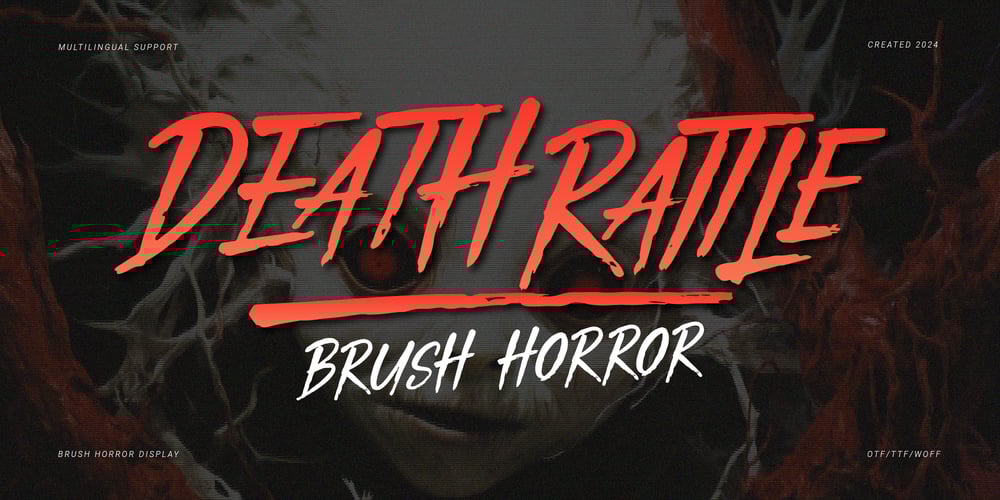
Death Rattle
Death Rattle font
Death Rattle Font Family was designed by Dede Nugraha and published by Denustudio. Death Rattle contains 2 styles and family package options. Death Rattle | Brush Horror Display, from Denustudios, suitable for any projects such as: logos, branding projects, homeware designs, product packaging, mugs, quotes, posters, shopping bags, t-shirts, book covers, name card, invitation cards, greeting cards, label, photography, watermark, special events, and all your other lovely projects that need a Brush Horror Display taste.===========================================================================What’s Included : Regular and Italic Web Font Standard glyphs Alternate and Ligature Works on PC & Mac Simple installations Accessible in the Adobe Illustrator, Adobe Photoshop, Adobe InDesign, even work on Microsoft Word and Other Software. PUA Encoded Characters – Fully accessible without additional design software. Fonts include multilingual support Hope you enjoy with our font!